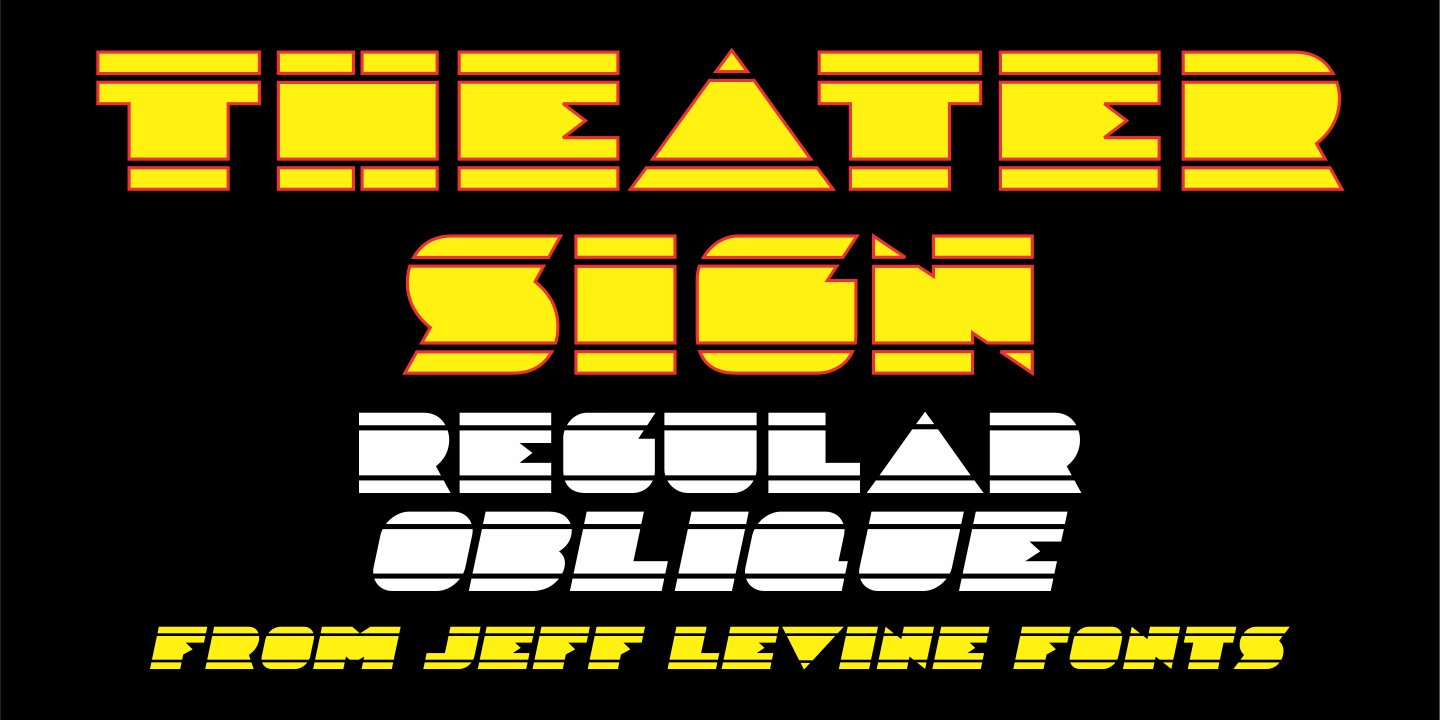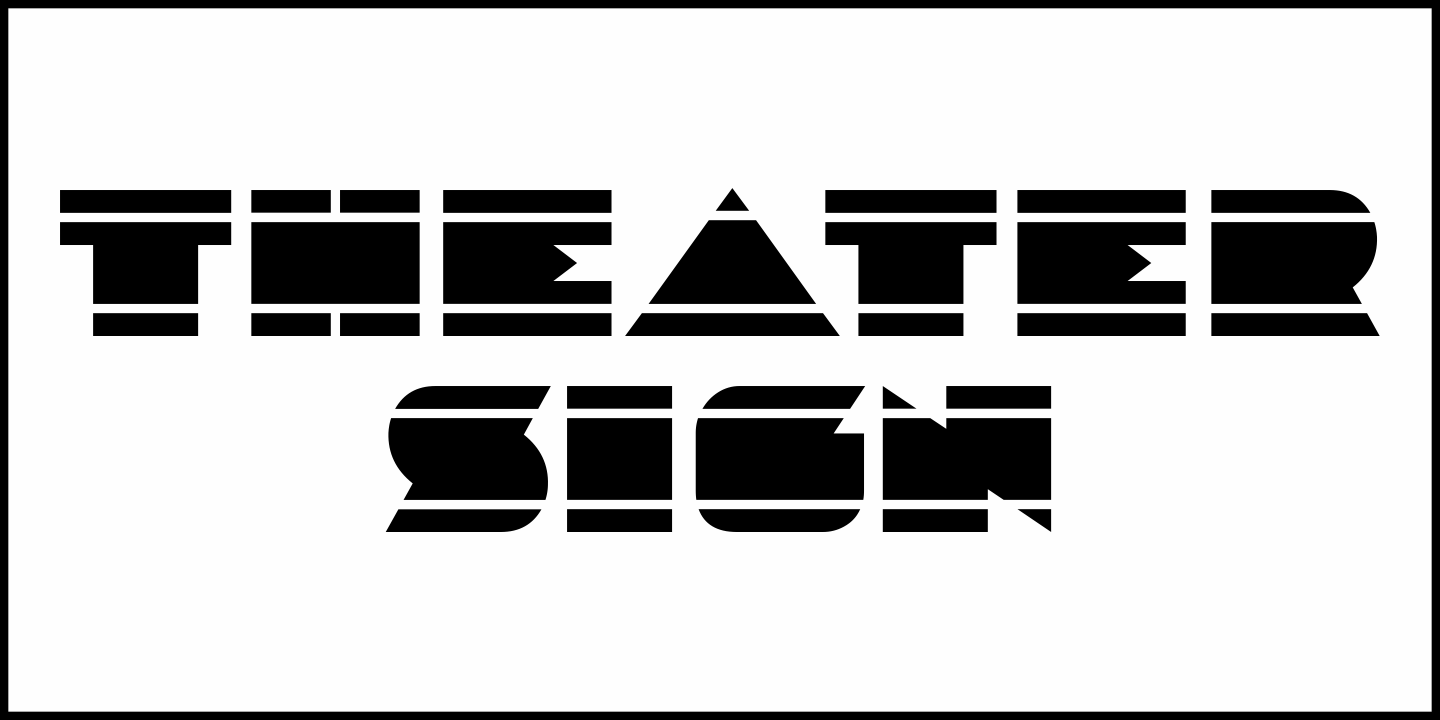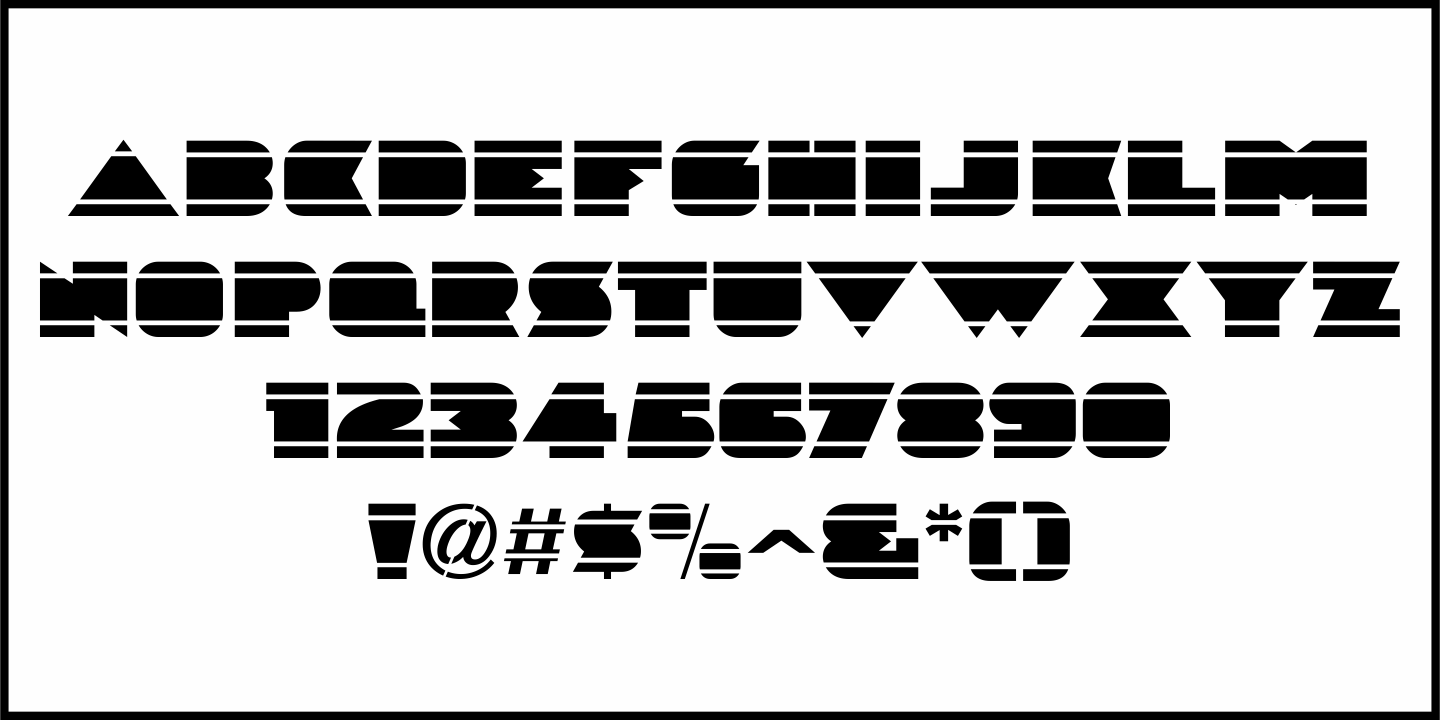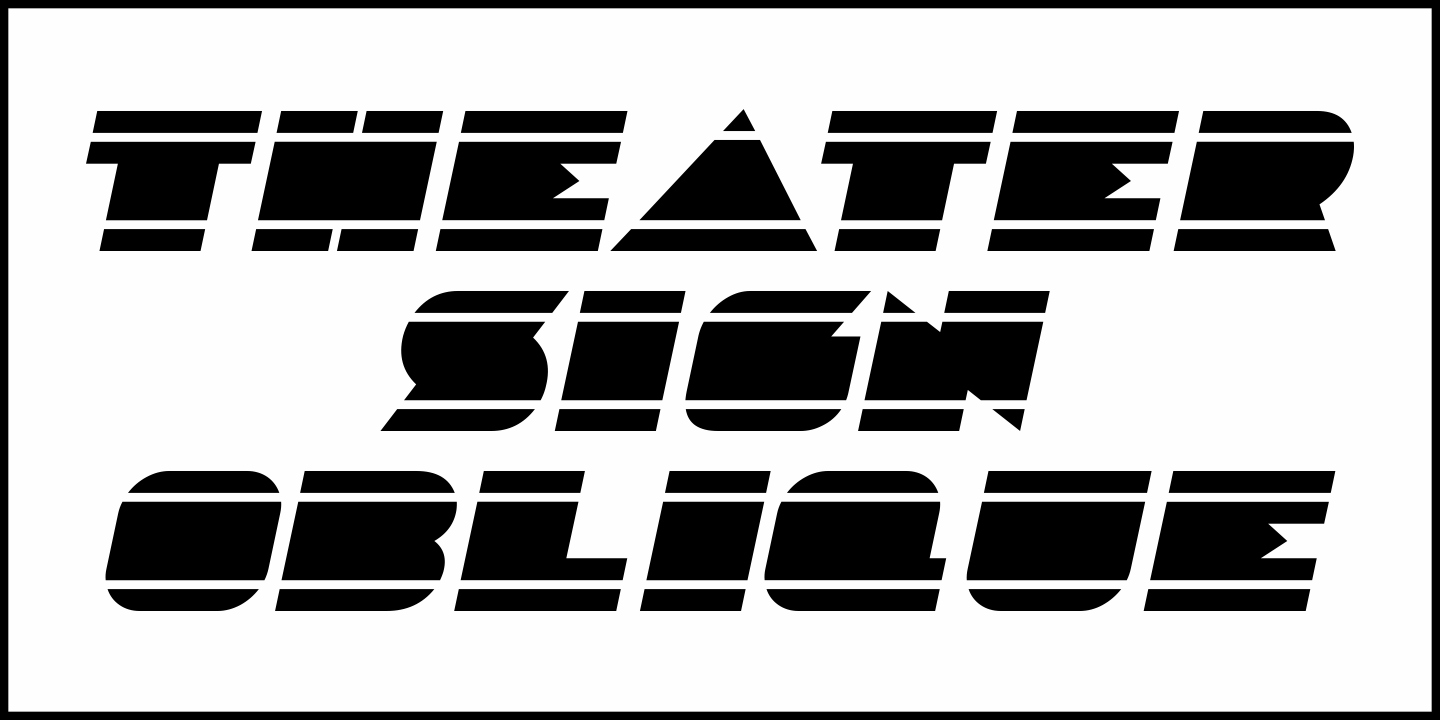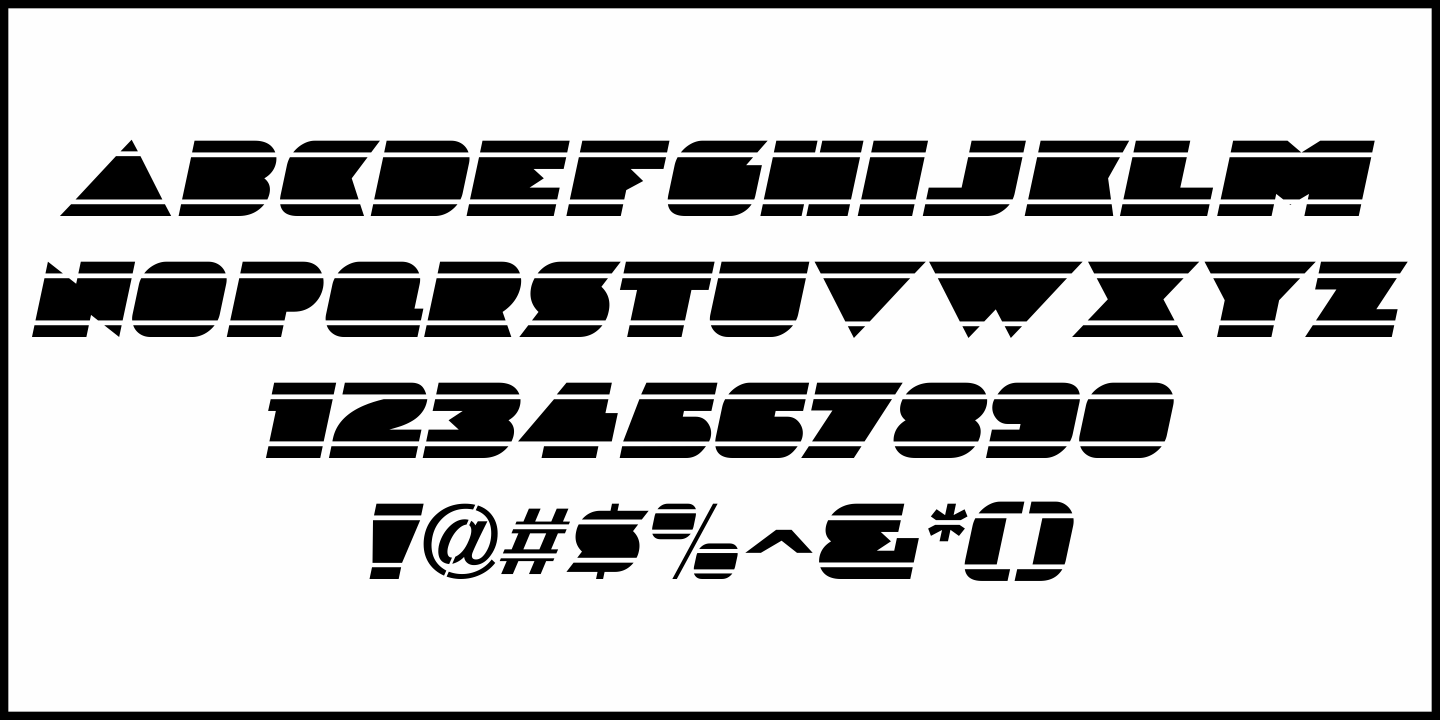
Theater Sign
Solid, counterless Art Deco lettering is nothing unique, but the sign shown in a photo from the October 16, 1937 issue of Motion Picture Herald took things to a different level.
The Augusta Theater (in Augusta, Kansas) used such a type style on its marquee sign, but what was unique was the parallel horizontal lines cutting through each character.
This was recreated digitally as Theater Sign JNL, and is available in both regular and oblique versions.